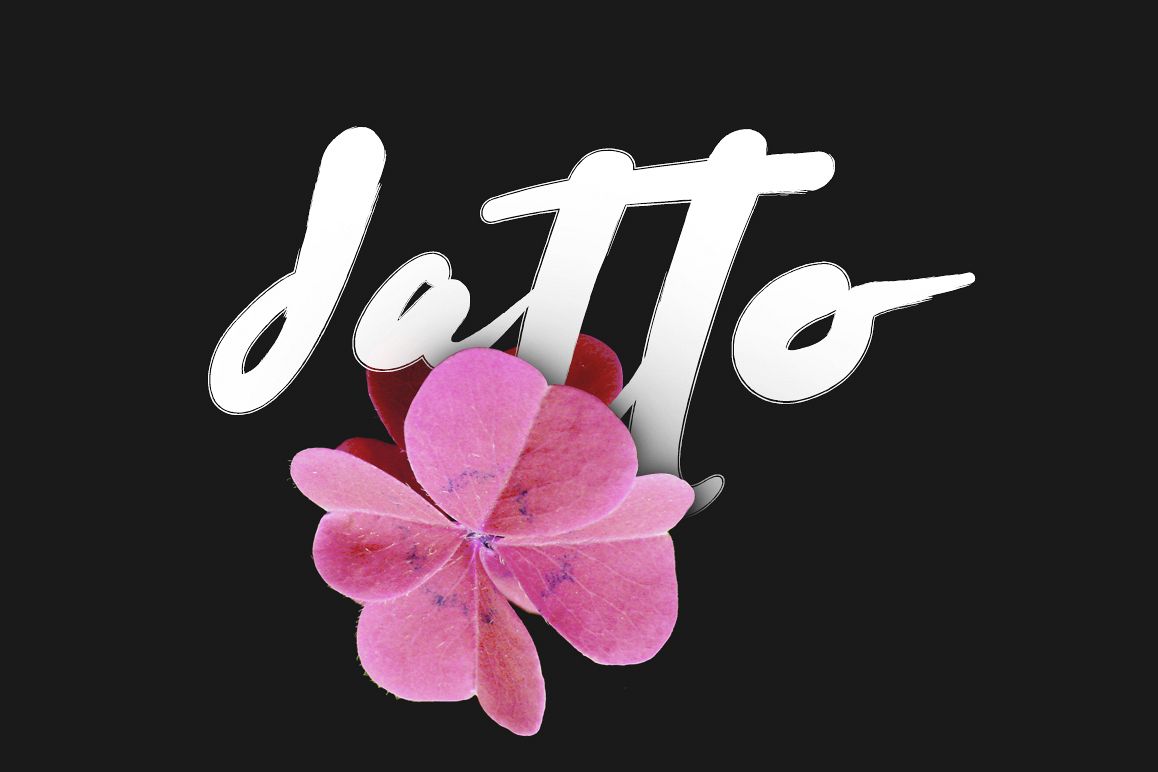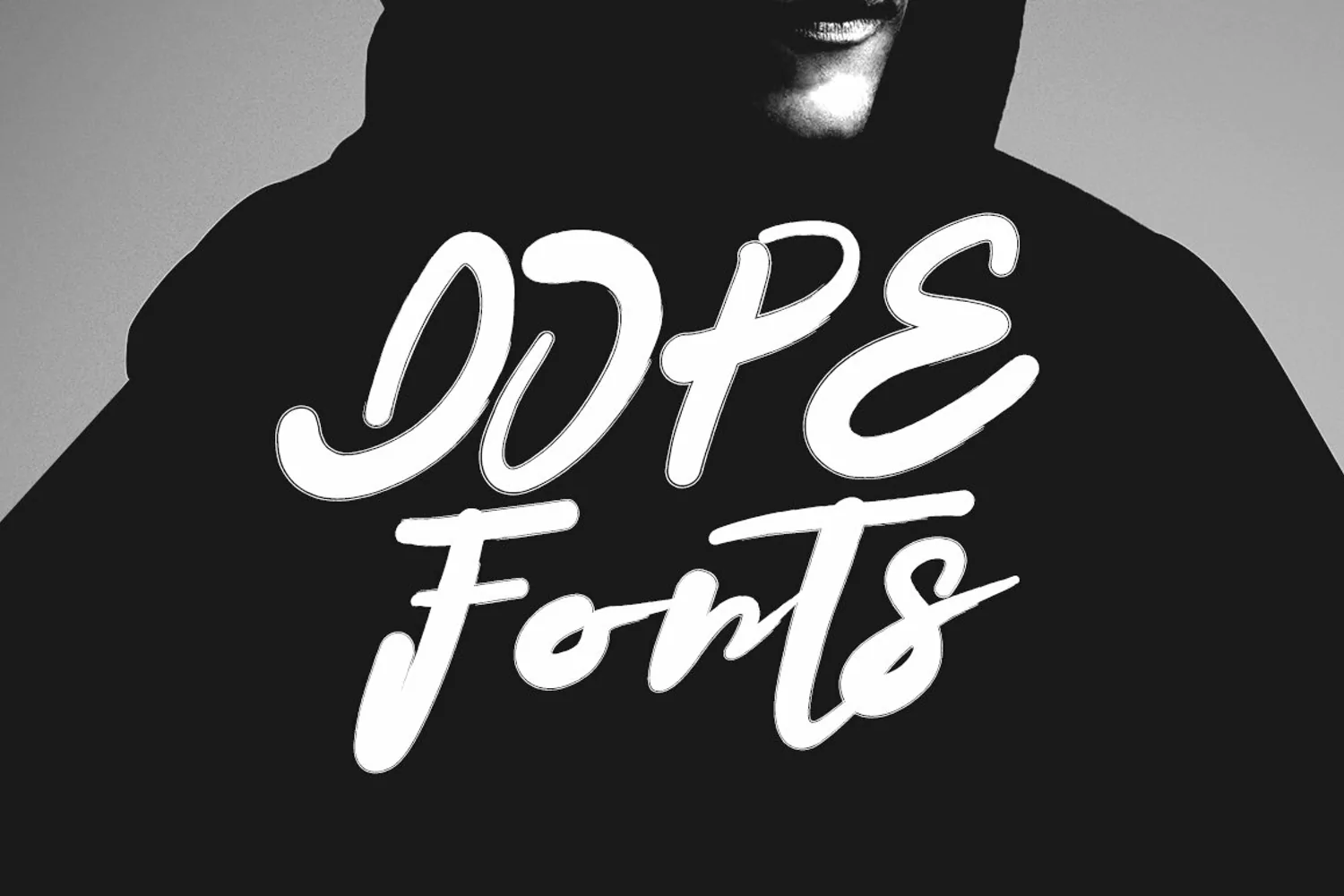
Datto Typeface example image 1
Give your designs an authentic brush handcrafted feel.
"Datto Typeface" is perfectly suited to stationery, logos and much more.